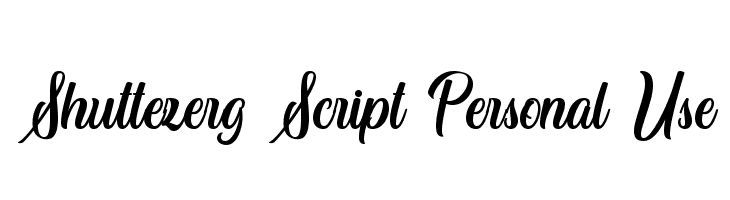
A dynamic, cursive script font with fluid, connected letters and a sophisticated appearance.
A bold, brush-style font with dynamic, slanted strokes.
A dynamic and elegant script font with fluid, cursive letterforms and dramatic flourishes.
A bold, cursive script font with fluid, connected letters and a dynamic style.
An elegant script font with flowing, interconnected characters and ornate flourishes.
A bold, brush-style font with a dynamic, handwritten appearance.
A modern, handwritten font with a casual and fluid style.
A fluid and elegant script font with bold, flowing strokes.